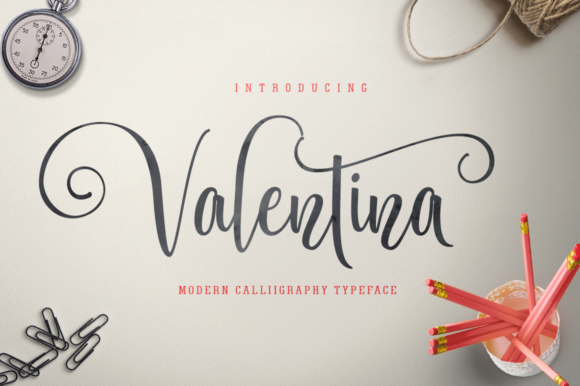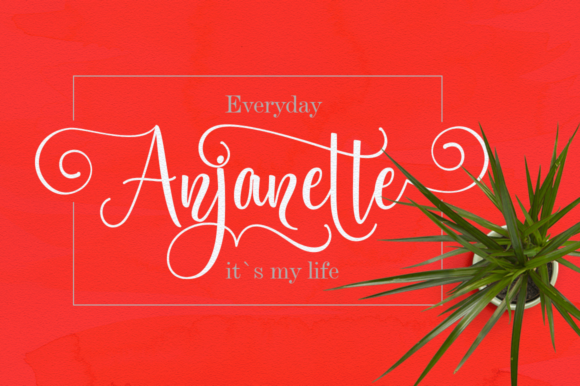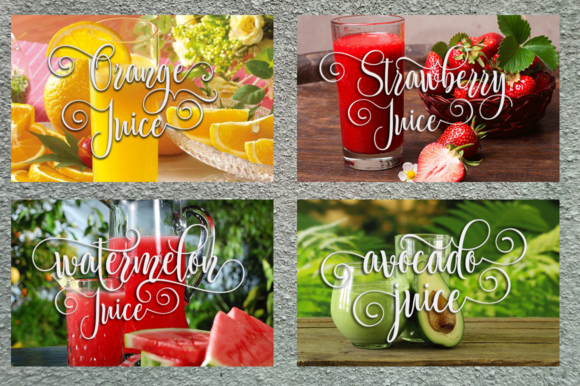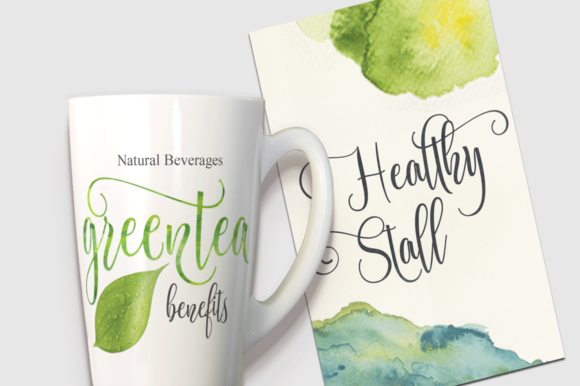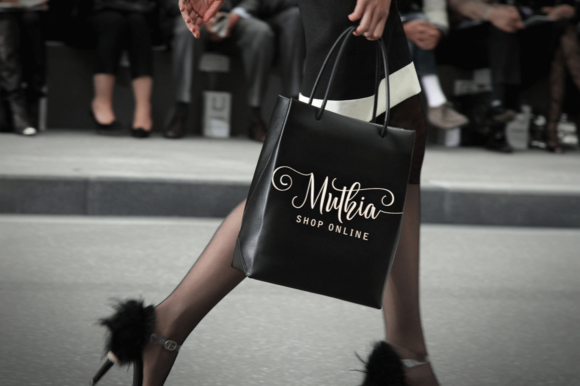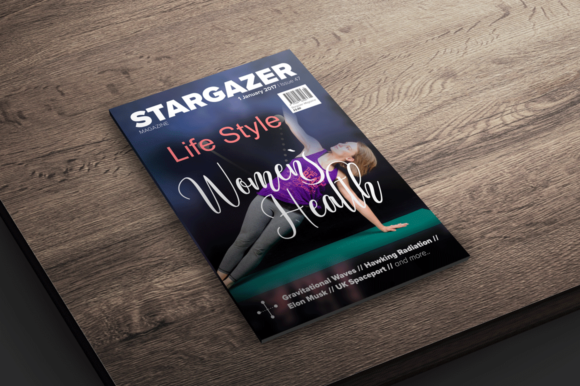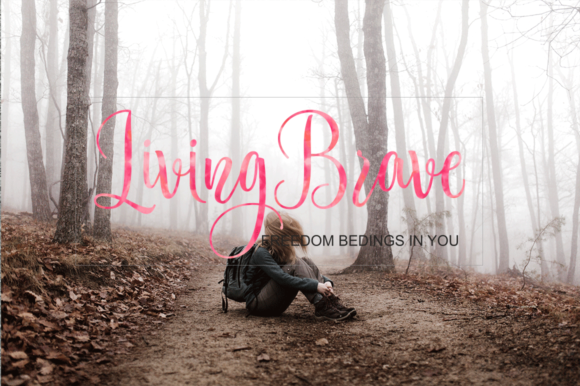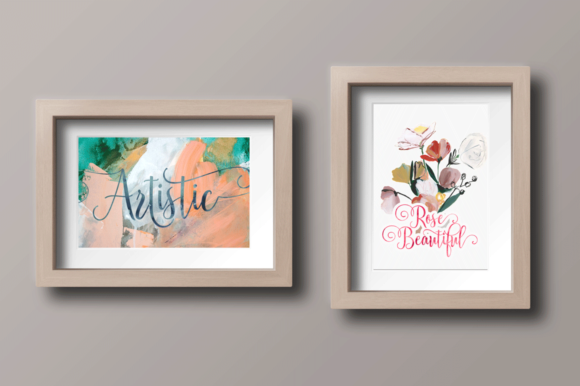
Valentina Font
About Valentina Font
The Valentina is a beautiful calligraphy font. It has dancing characters and includes an unique calligraphy style. It’s elegant swashes which will give your design a luxurious feel.